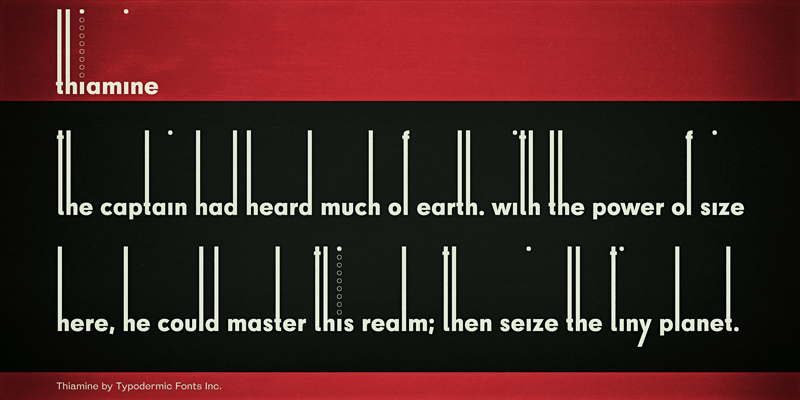
Thiamine is a lowercase display font with an extremely low x-height or an extremely high ascenders depending on your point-of-view. This font includes a license that allows free commercial use: sometimes referred to as a desktop license. This allows you to install the font on a computer and use it to create posters, web graphics, game graphics, t-shirts, videos, signs, logos and more. Read the license agreement for details. If you'd like to embed this font in an app, ebook, on the web or anything that's not covered by the desktop license agreement, visit the link below. You'll find distributors who offer different types of licenses or you can contact me for help. http://typodermicfonts.com/thiamine/ |